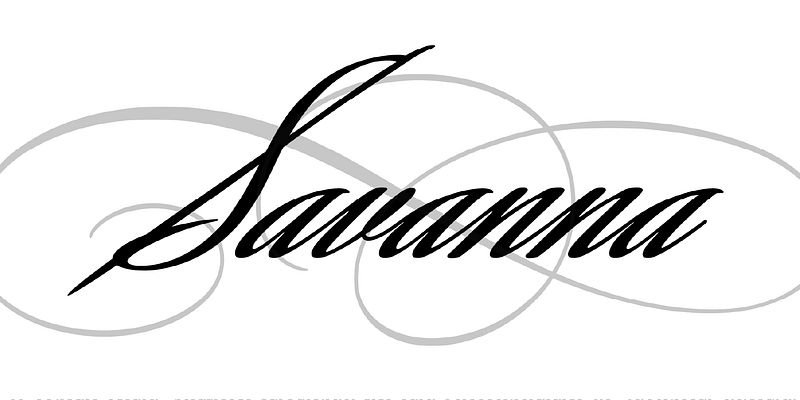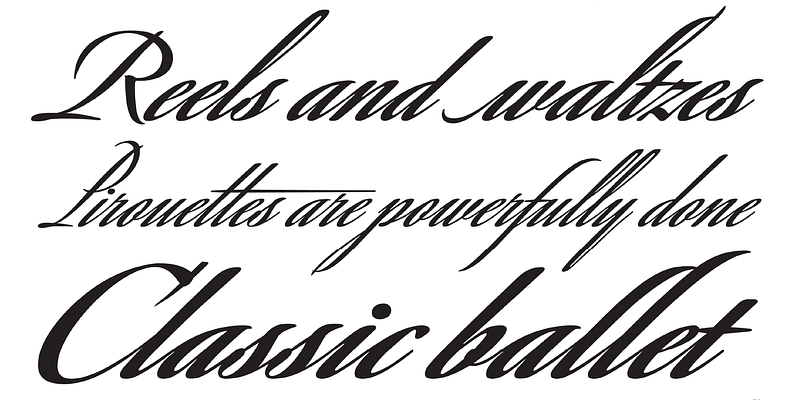
Richard Lipton is a master of the calligraphic script, transforming the elegance of pen-on-paper into beautiful, functional fonts. For Savanna Script, he channeled Friedrich Neugebauer and Martin Wilke, modern calligraphers whose square-edged pen updated 16th-century styles. Tight and taut, Savanna dances with a rapid yet effortless energy. Three weights and multiple cap styles offer flexibility rare in formal scripts.
Richard Lipton is a senior designer at The Type Founders developing original typefaces as well as custom font designs for international clients.
He began his lettering journey while studying art and design in college where he was introduced to the magic of calligraphy. Essentially self-taught, Lipton continued his calligraphic studies independently and upon graduating in 1974 he freelanced as a calligrapher, sign painter, and graphic designer eventually establishing a studio in Cambridge, Massachusetts. In 1983, Lipton joined Bitstream, an innovative digital type foundry under the guidance of Mike Parker and Matthew Carter and helped to make Bitstream’s retail library one of the most respected in the industry. In his tenure as a senior designer, Lipton developed two original type families: Arrus, and Cataneo (in collaboration with Jacqueline Sakwa). After leaving Bitstream in 1991, Lipton once again created an independent lettering studio and designed many original typefaces including Bickham Script Pro for Adobe and Sloop for Font Bureau. Lipton is currently on the faculty at RISD where he teaches both type design and calligraphy. He is also a founding partner of Type Network.